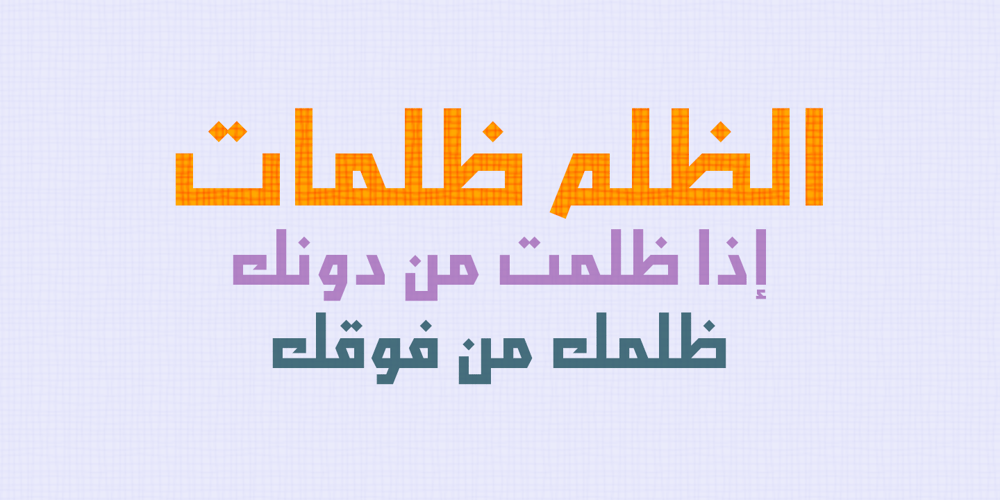
Abdo Joody Font Family was designed by Abdulsamiea Rajab Salem and published by Abdo Fonts. Abdo Joody contains 1 styles and family package options. Abdo Joody is a straight style. This is an OpenType Font supporting Arabic, Persian and Urdu and compatible with the various operation systems and modern software. The combination of square Kufi and modern styles made it a beautiful typeface, appropriate to titles and text, and able to meet the desire of the user in the design of ads and modern designs of various types of audio and visual. I will add more weights of this font with Allah willing.